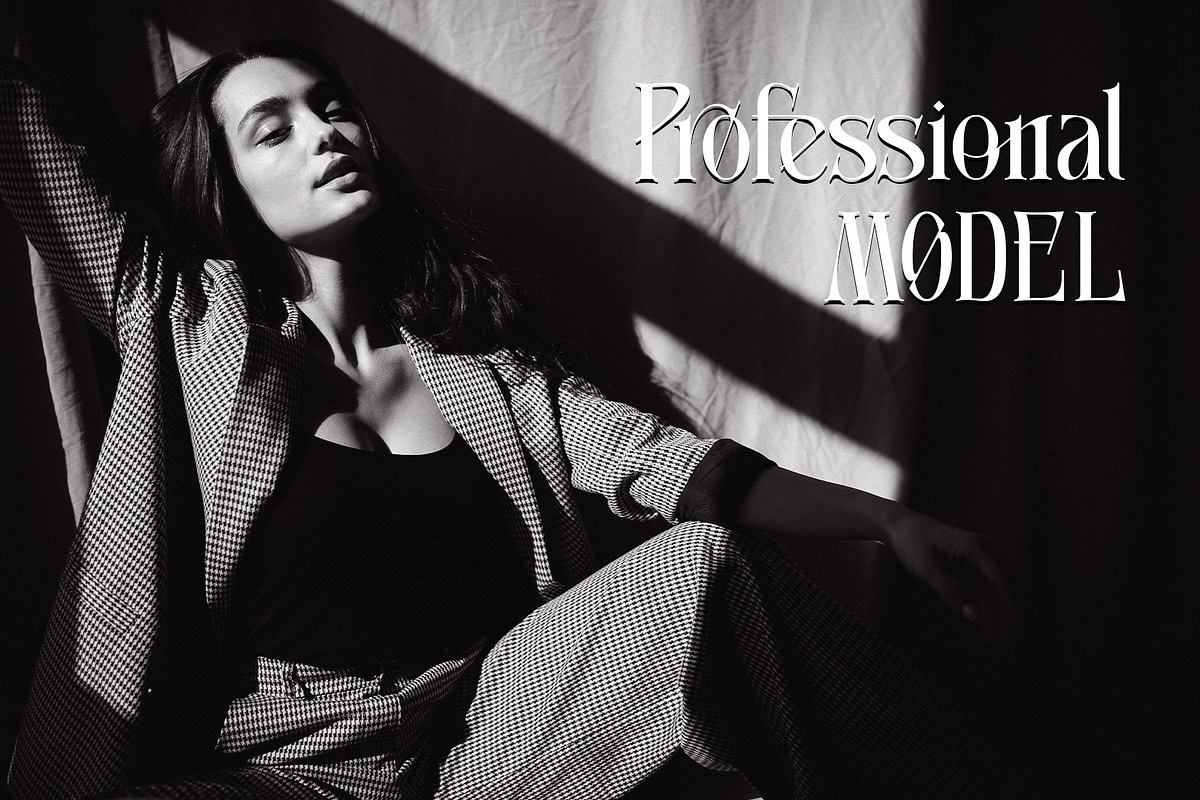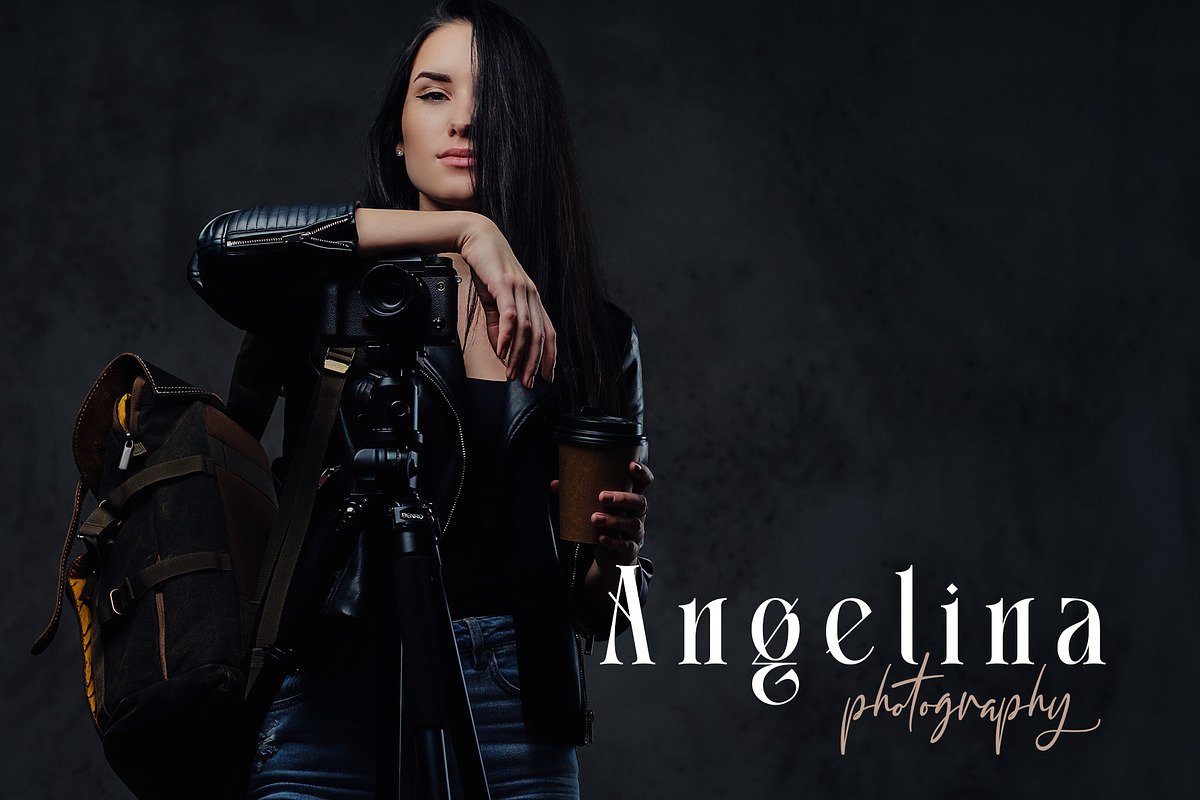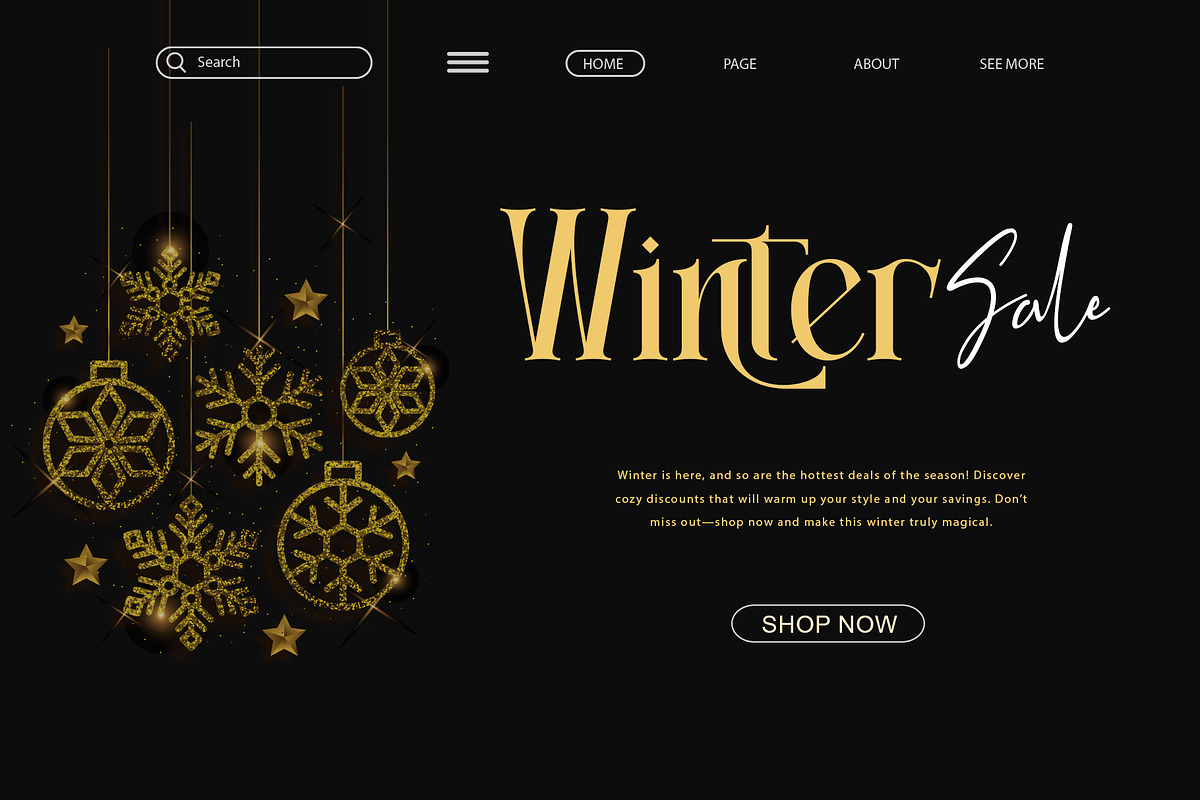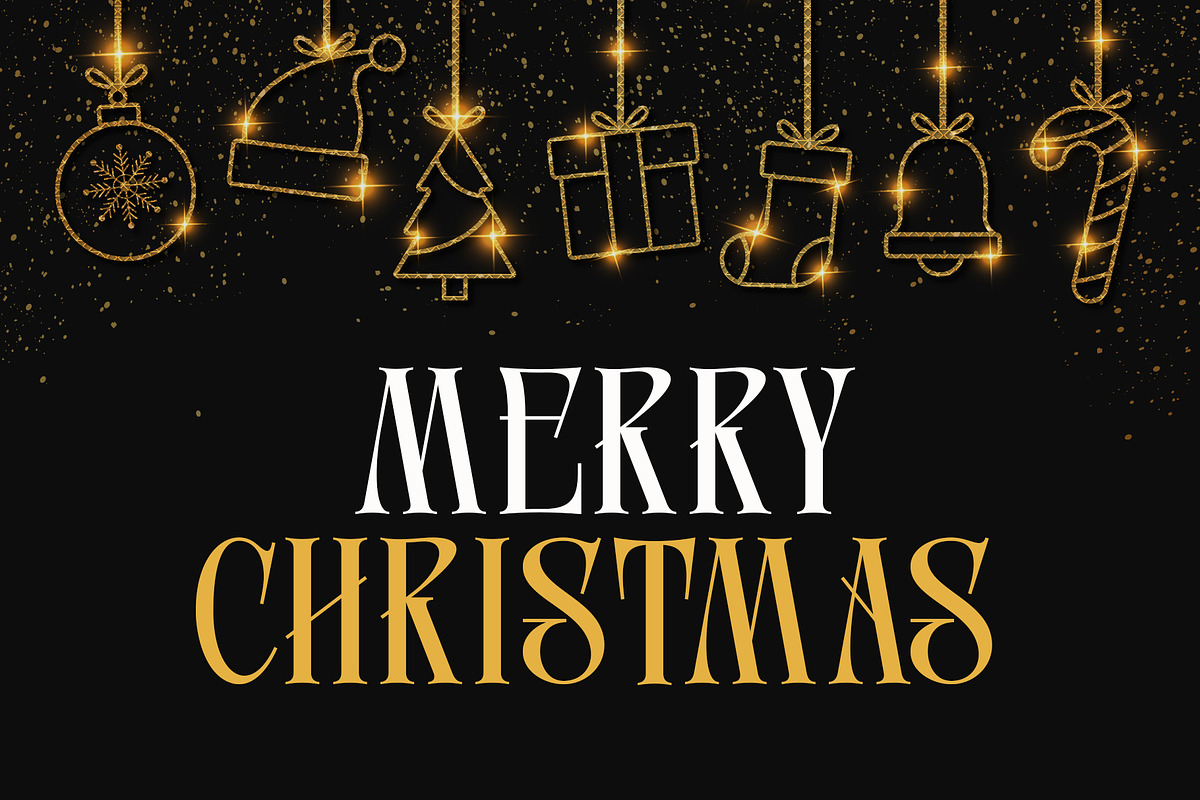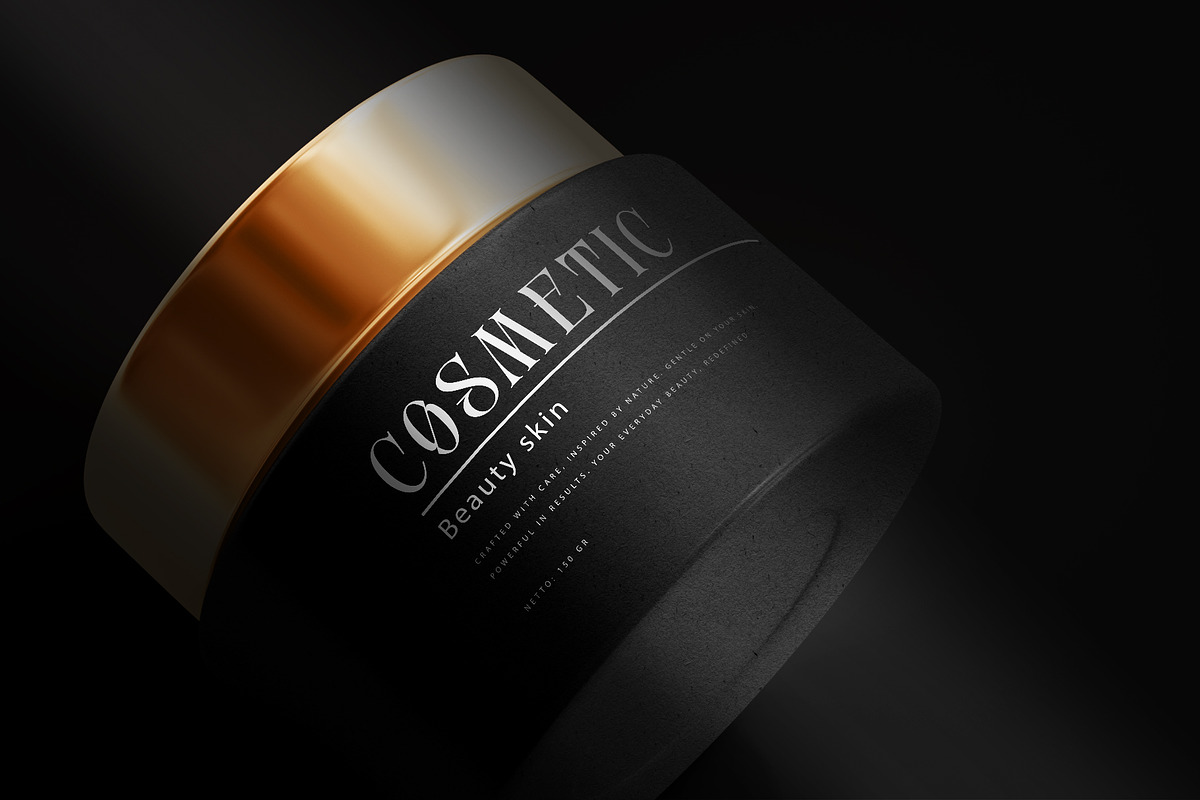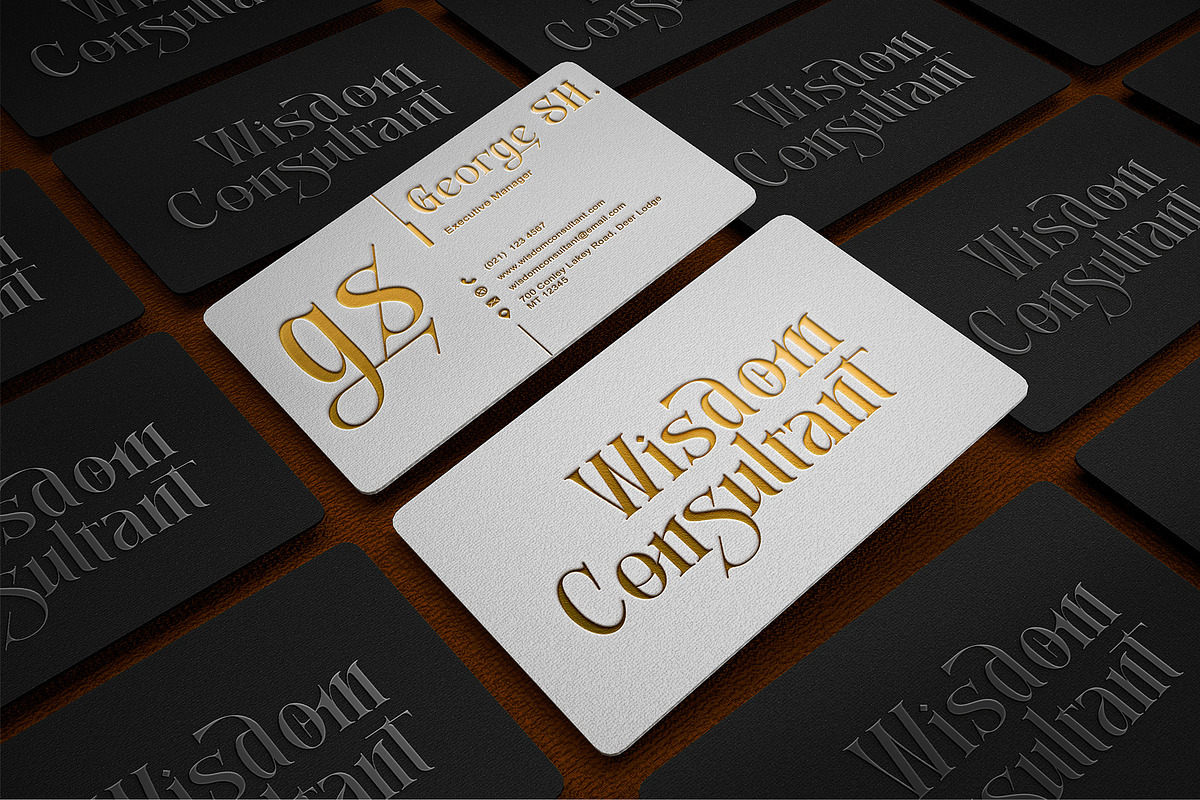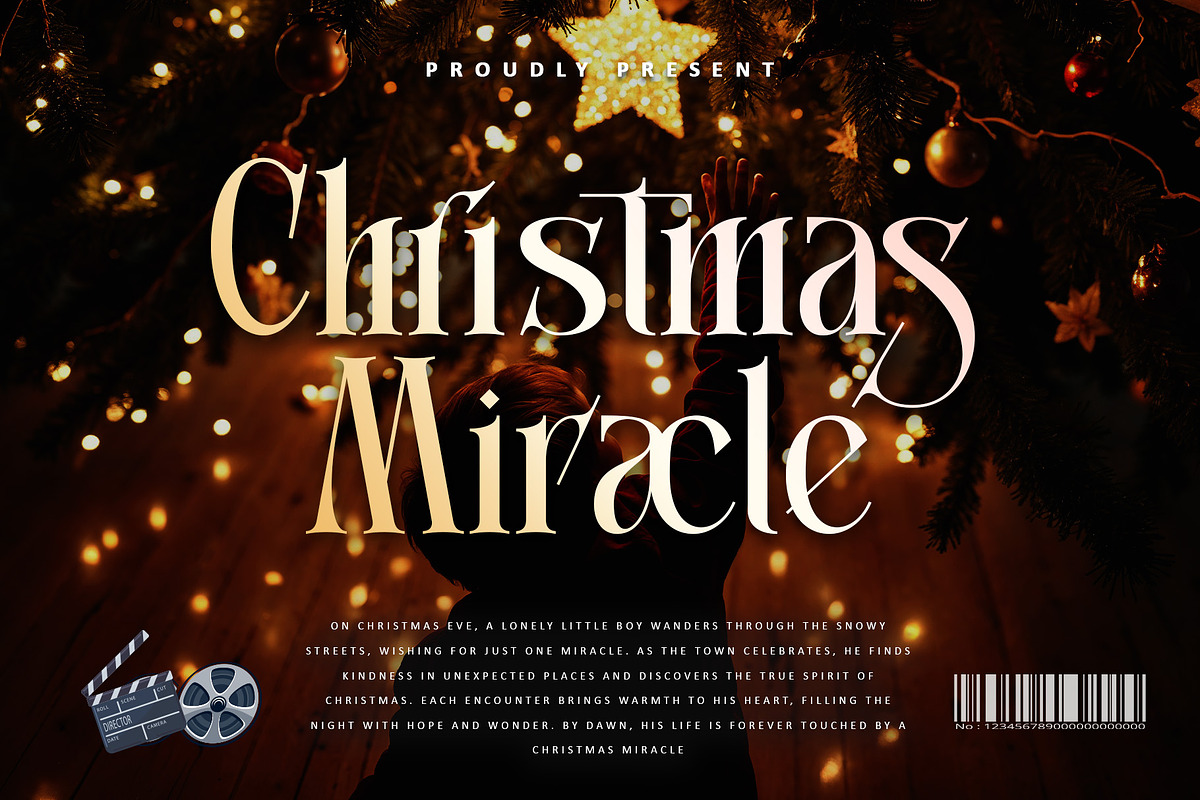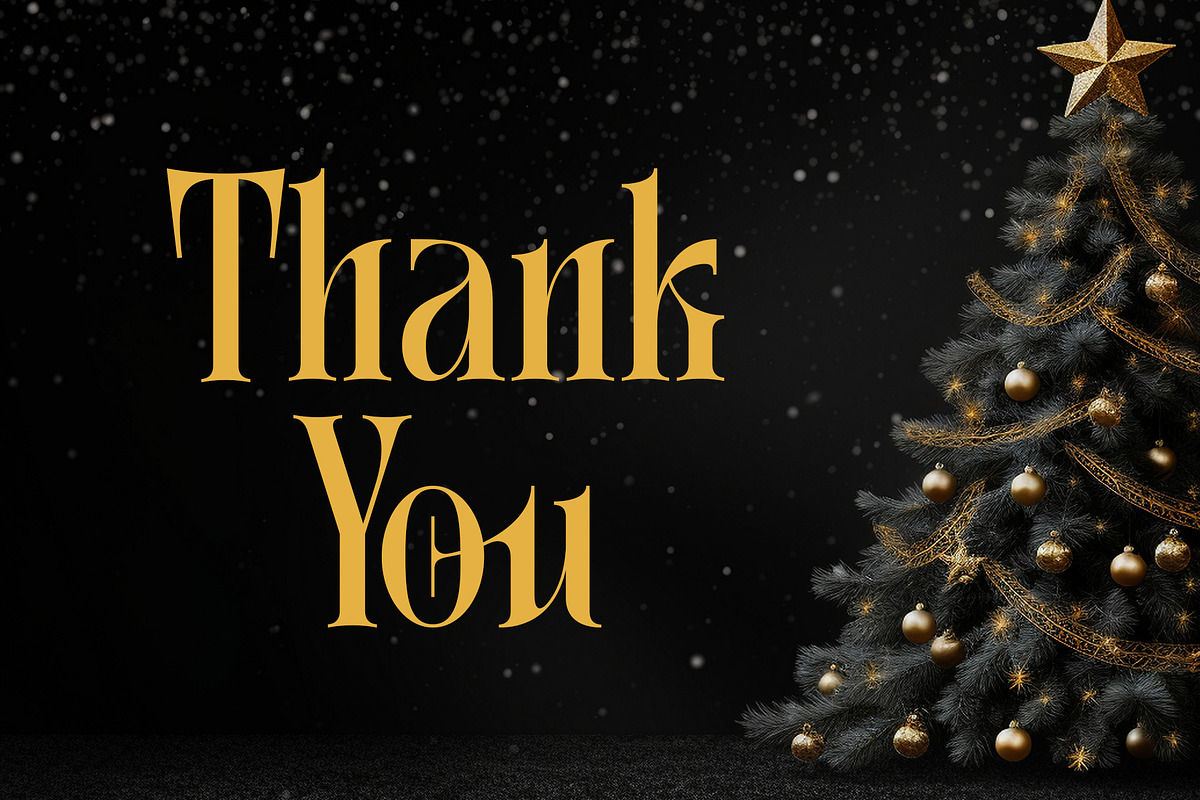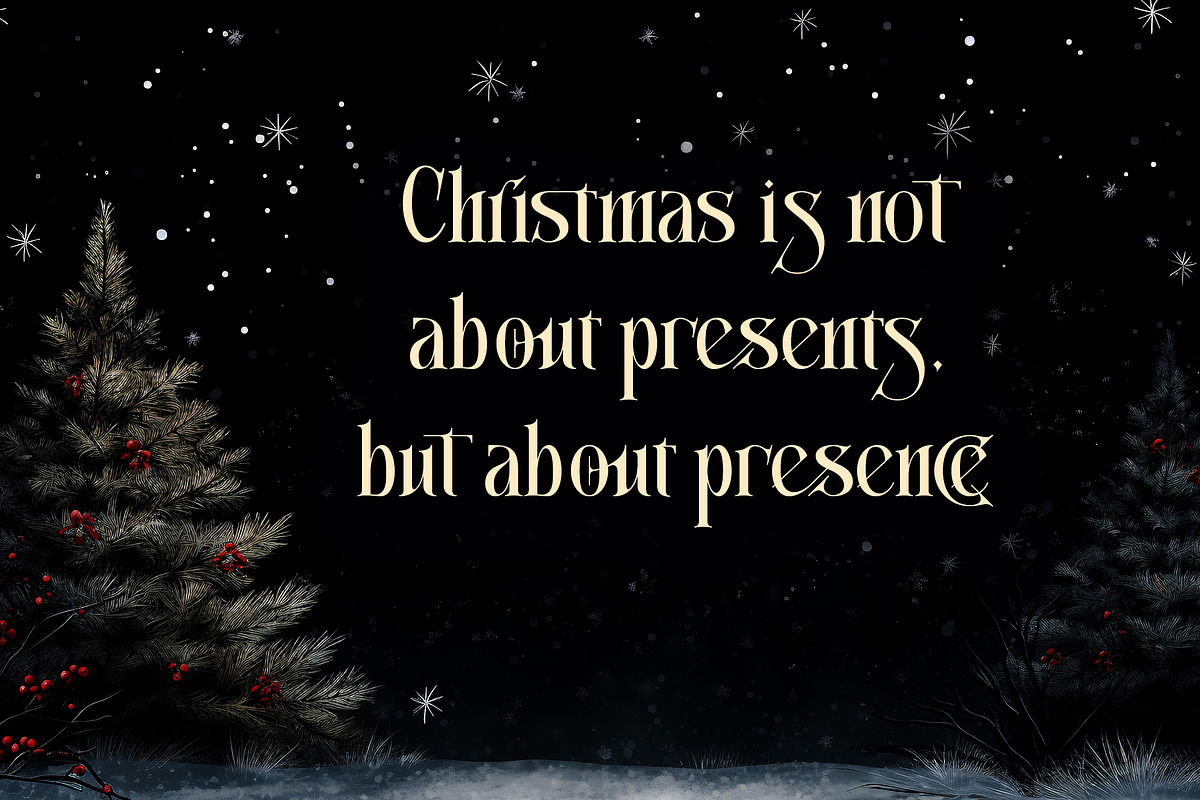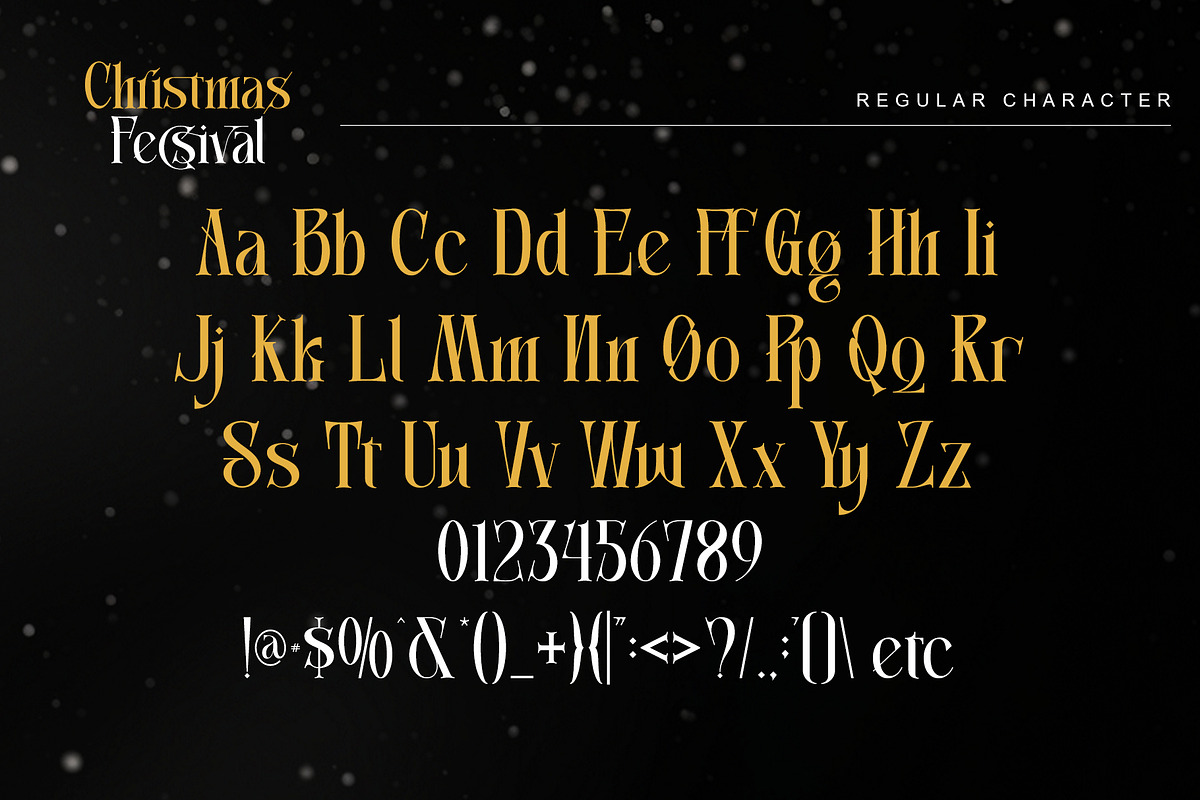
Christmas Fecsival – Elegant Serif
Introducing Christmas Fecsival, a refined serif font that blends modern sophistication with timeless festive charm. With its graceful curves, stylish ligatures, and unique letterforms, this typeface is perfect for elevating your holiday designs. From branding, packaging, and editorial layouts to Christmas cards, fashion campaigns, and event posters, Christmas Fecsival brings luxury and elegance to every project. Its glamorous yet versatile vibe makes it ideal for both modern and vintage-inspired designs. Plus, it’s fully PUA encoded, giving you easy access to all special glyphs and ligatures to unleash your creativity.
- Support multilingual; ä ö ü Ä Ö Ü ß ¿ ¡
- lowercase and uppercase letters
- Alternate, swash, Titling, ss01, ss02, ss03 & ligature